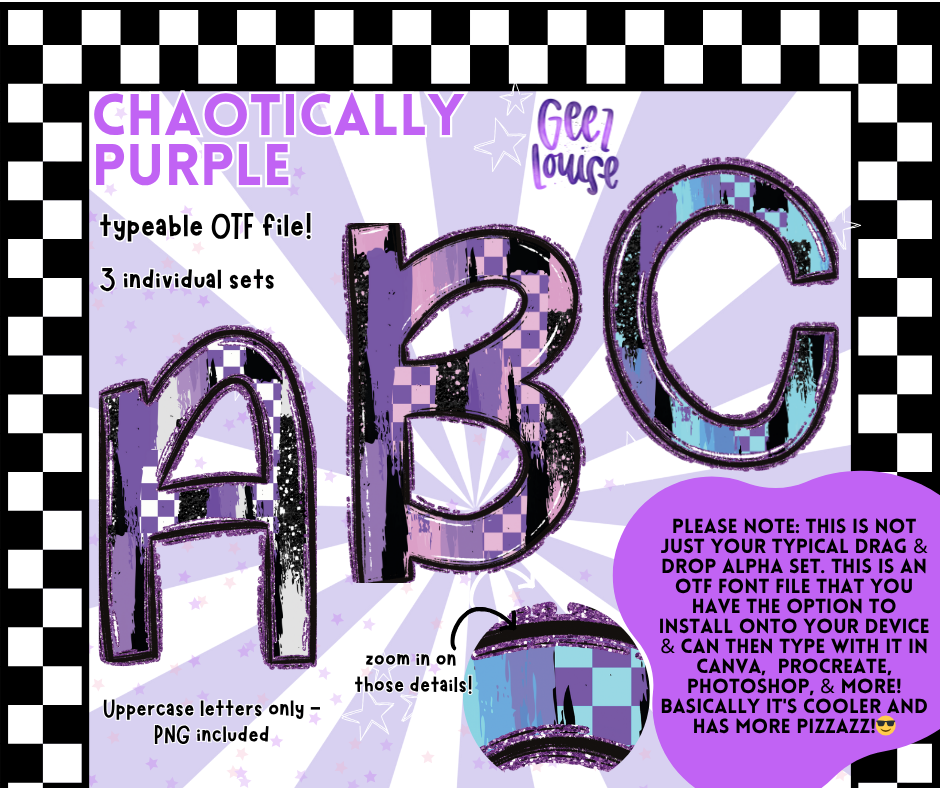
Chaotically Purple OTF Font & PNG Alpha Set – 3 Bold Uppercase Styles
Bring bold vibes and purple pizzazz to your next project with the Chaotically Purple OTF Font & PNG Alpha Set! This high-impact design bundle includes three unique uppercase letter sets in rich purple hues with checkerboard, grunge, and textured overlays. Perfect for edgy, creative, and standout designs!
This is not your average alphabet—this is Chaotically Purple.